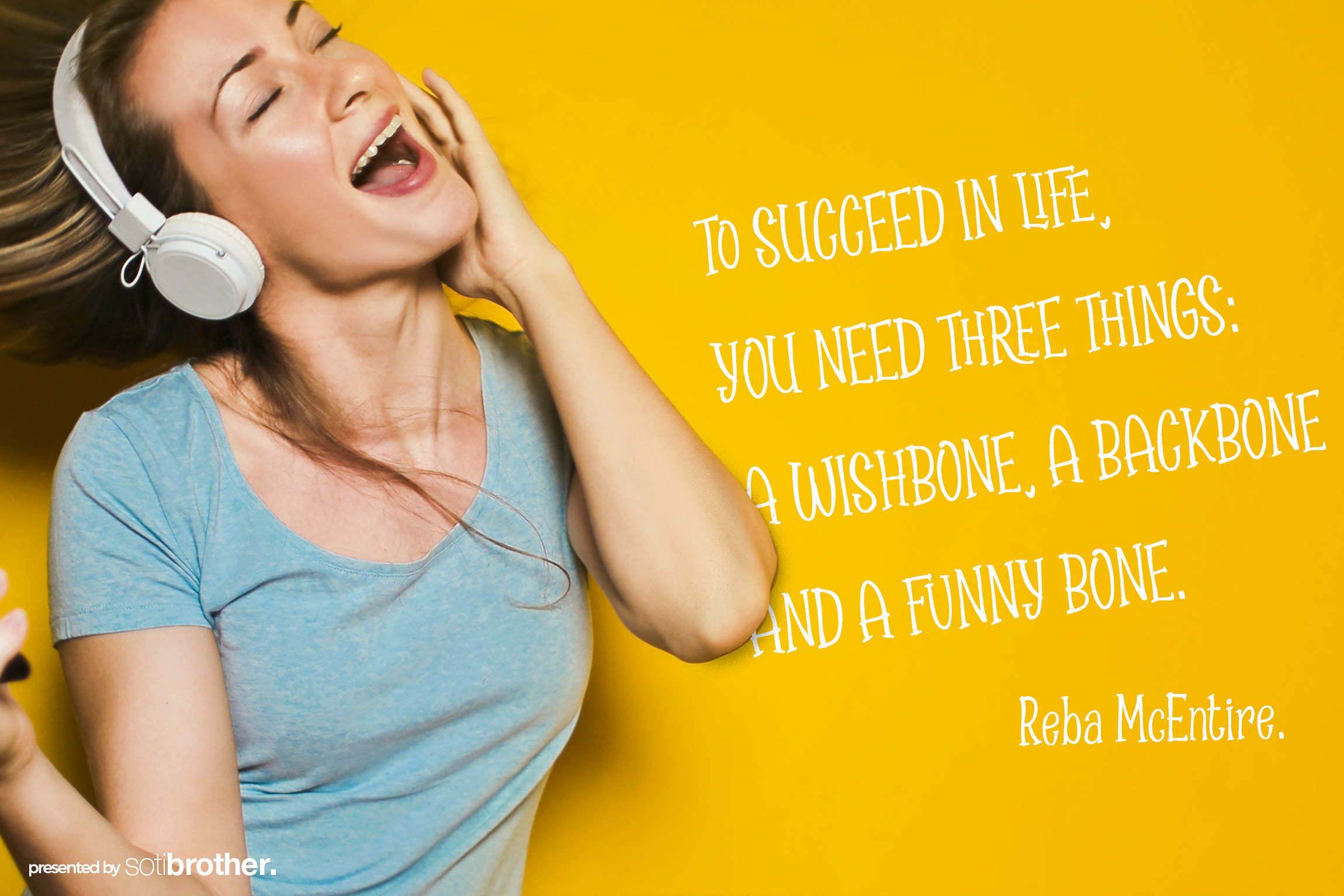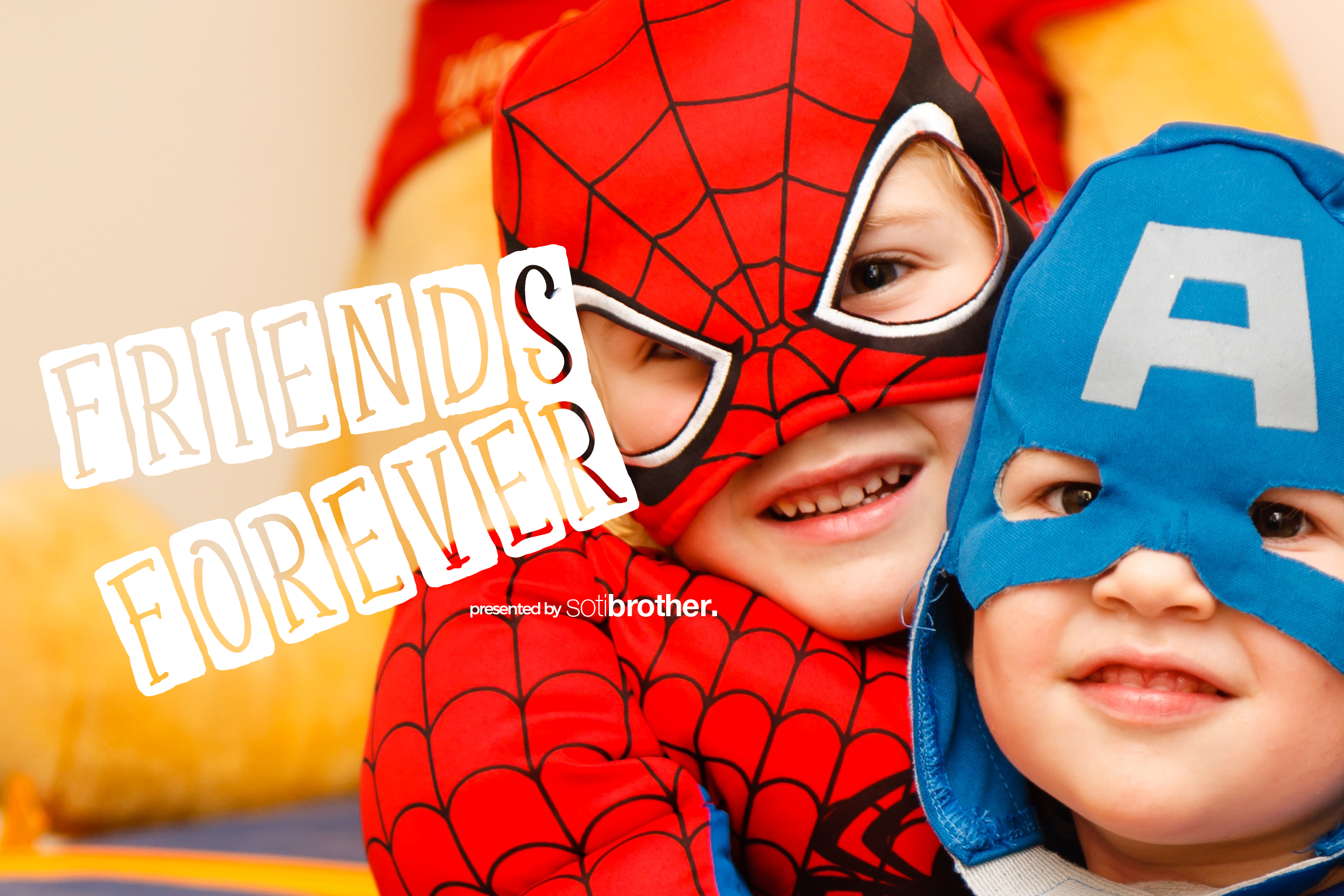
Spizzella Font
About Spizzella Font
Spizzella is a vibrant, cheerful, and fun font.
Spizzella will be sweet to you who are sassy and brave, and offers a pleasant flow that will be perfect for all designs like logo & branding, stationery, social media, advertising.